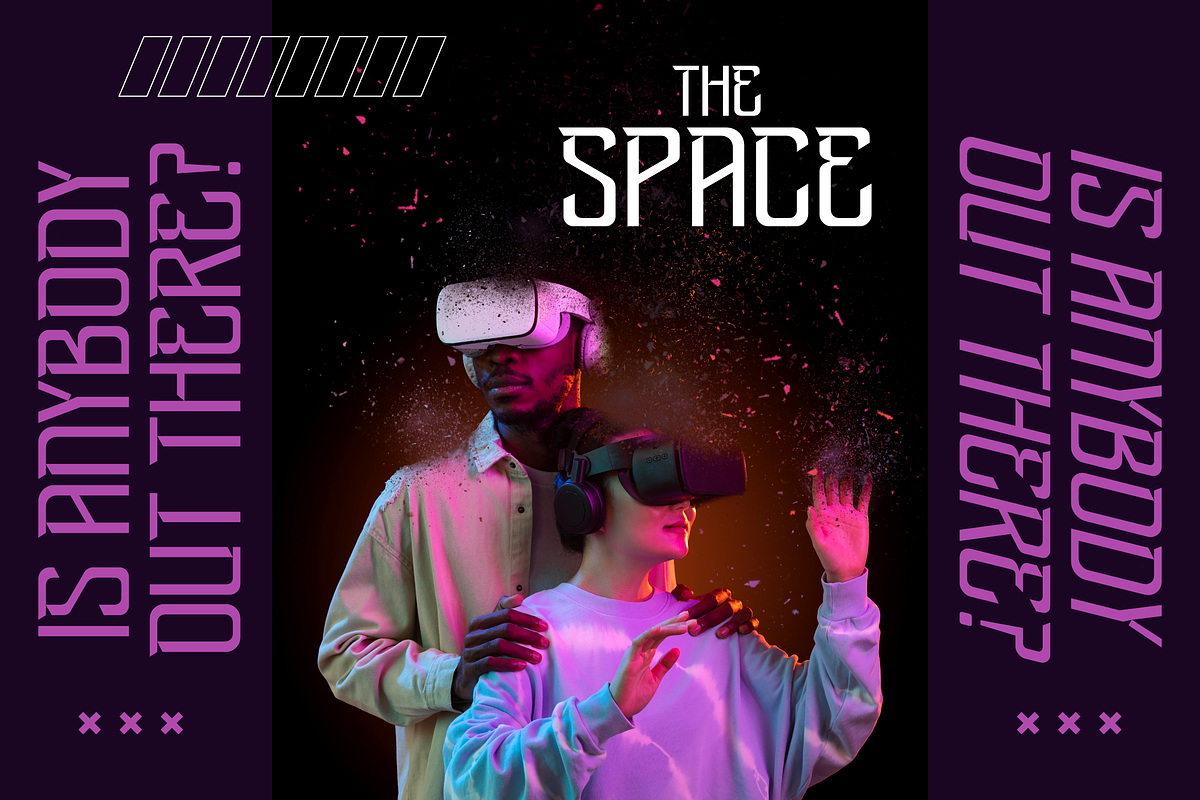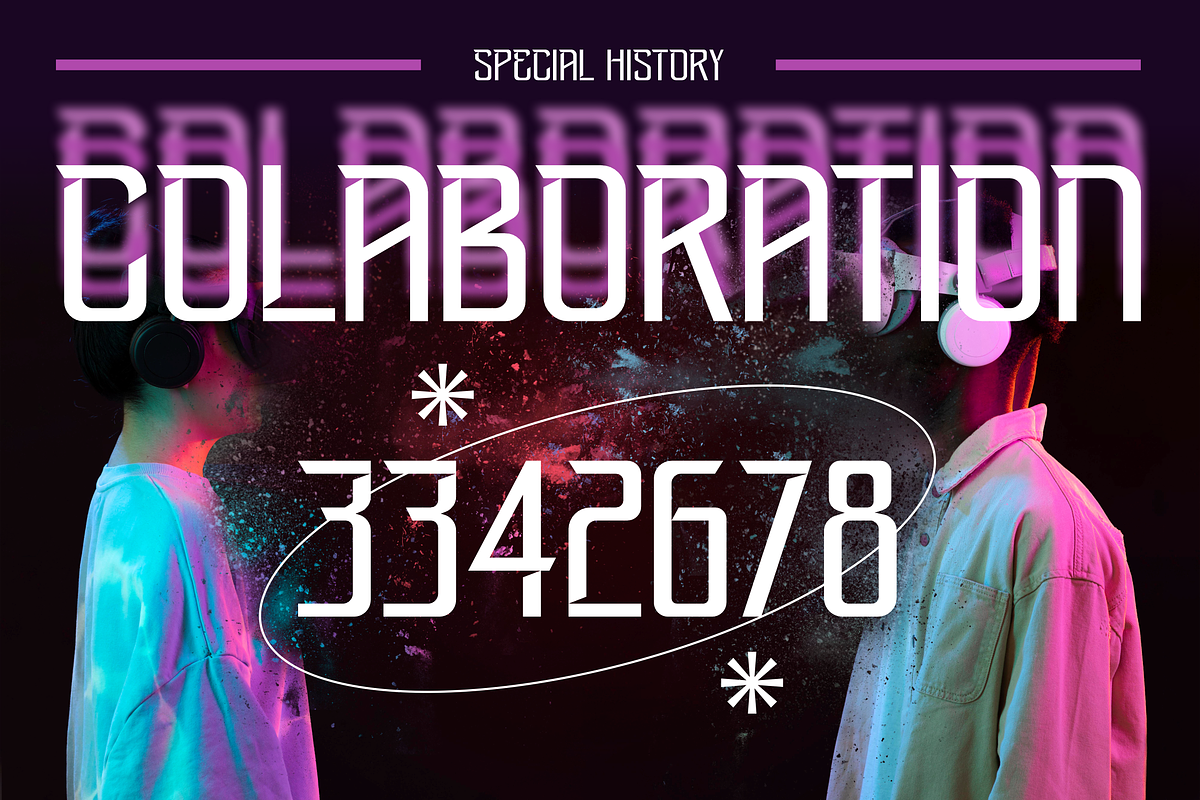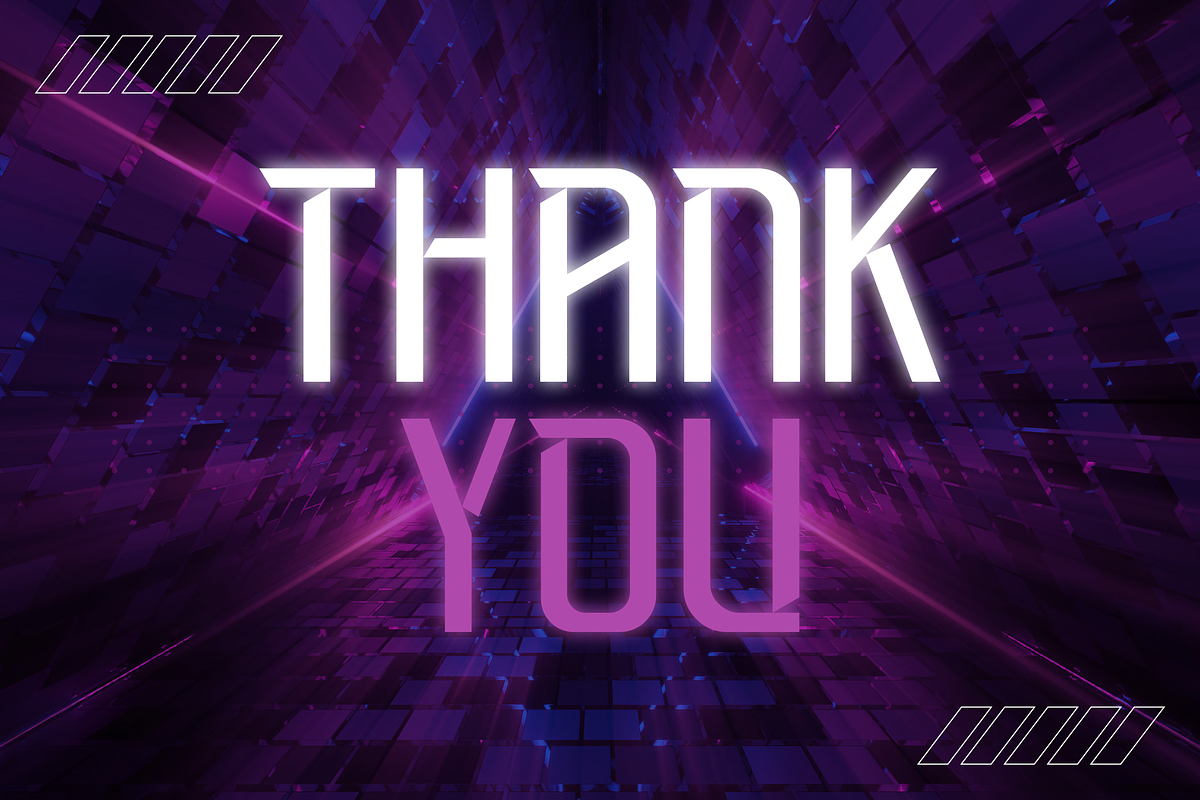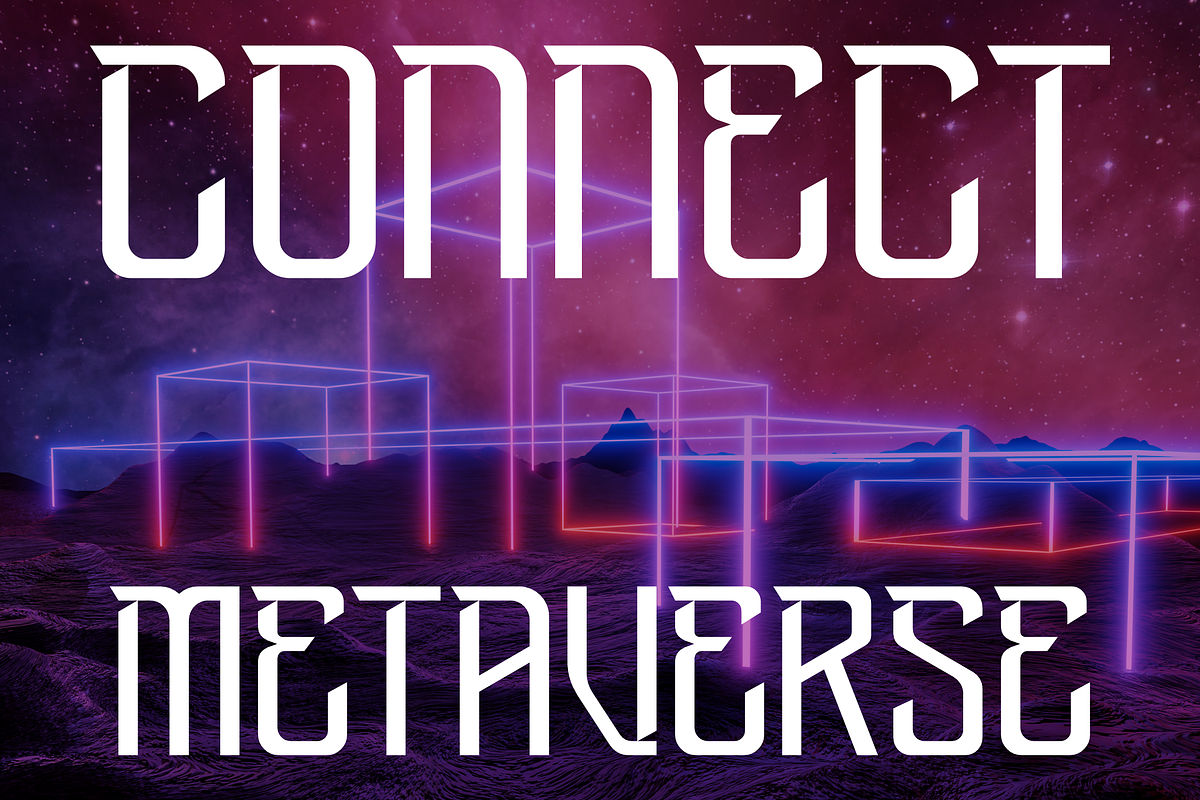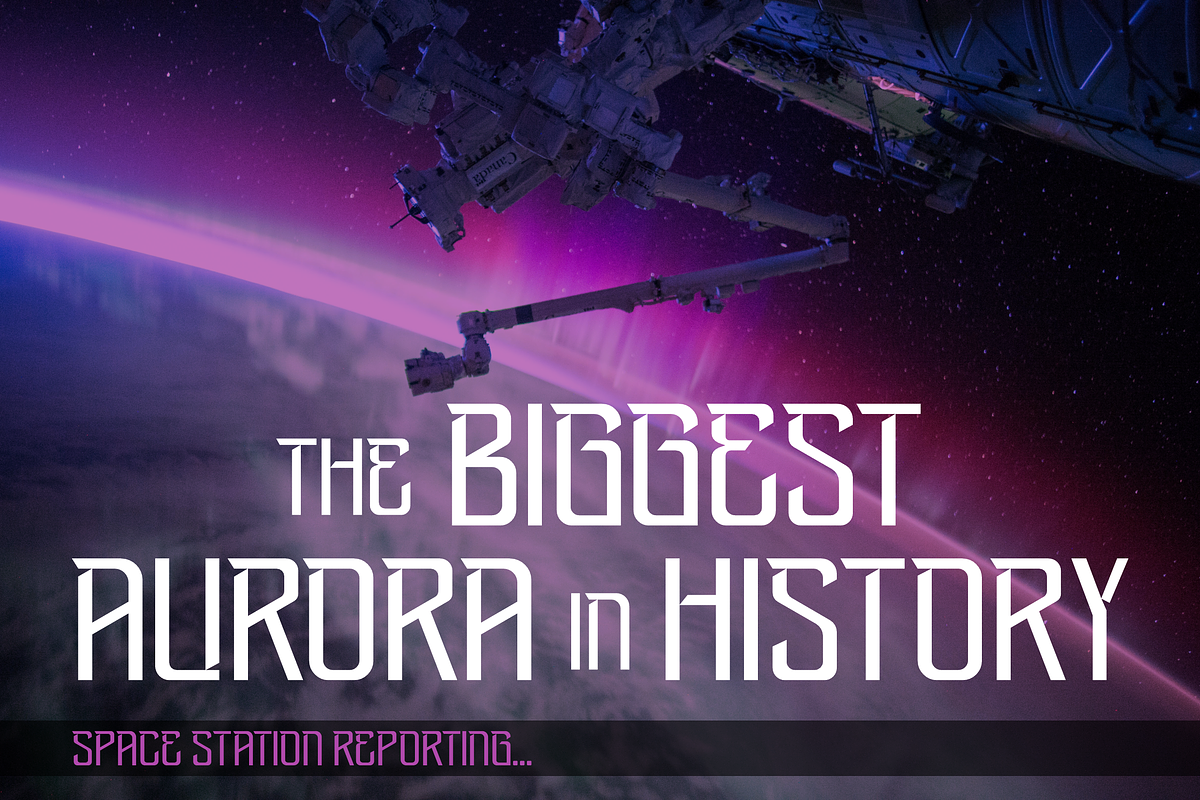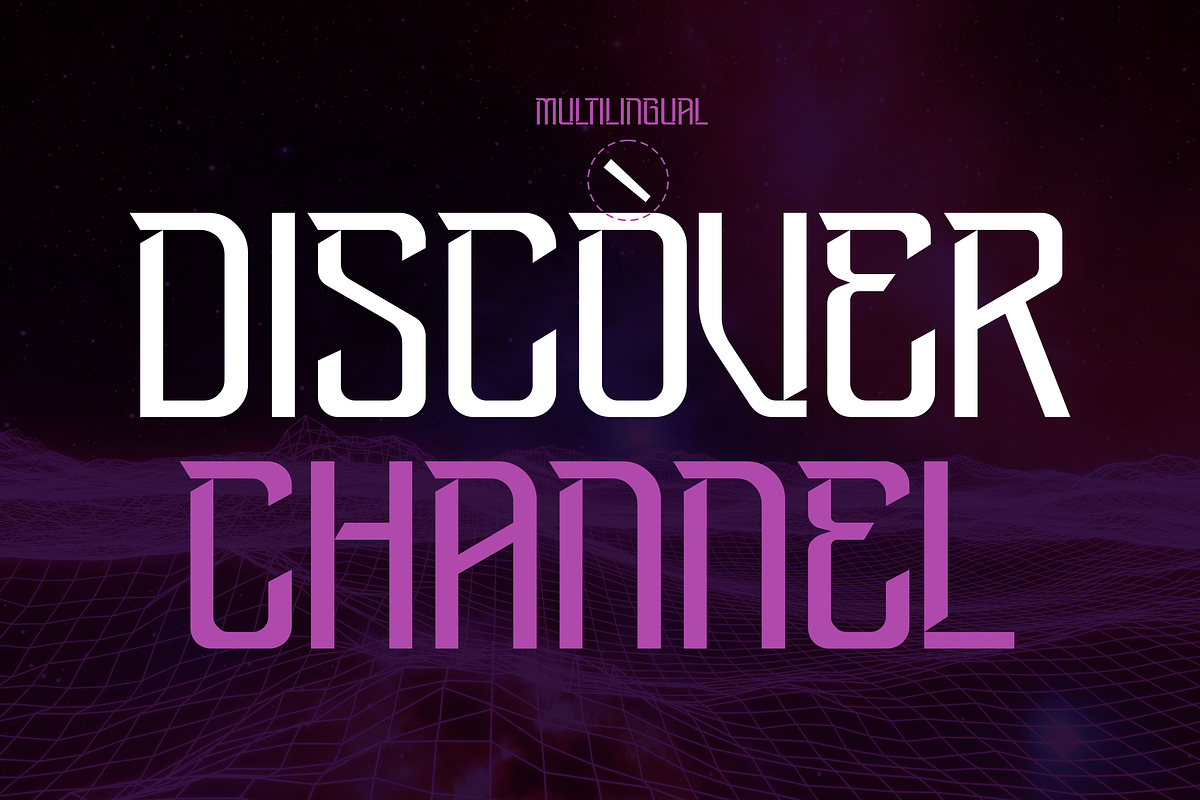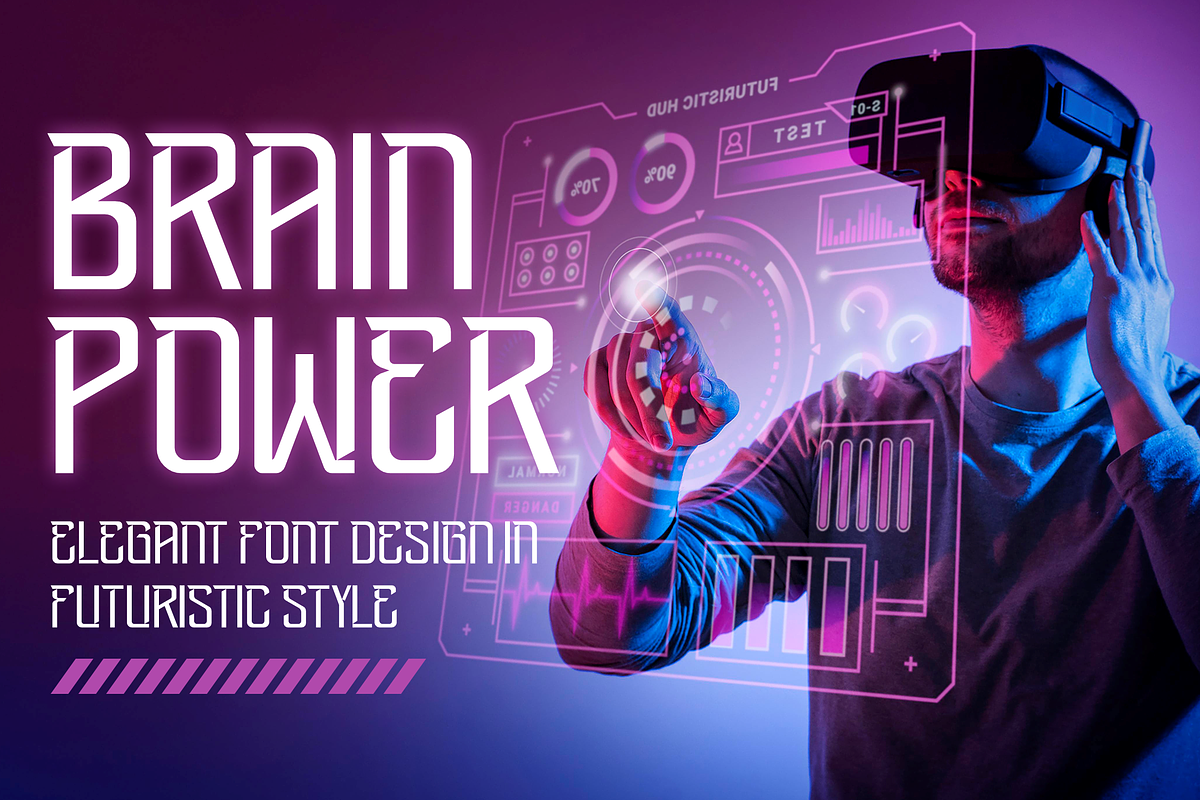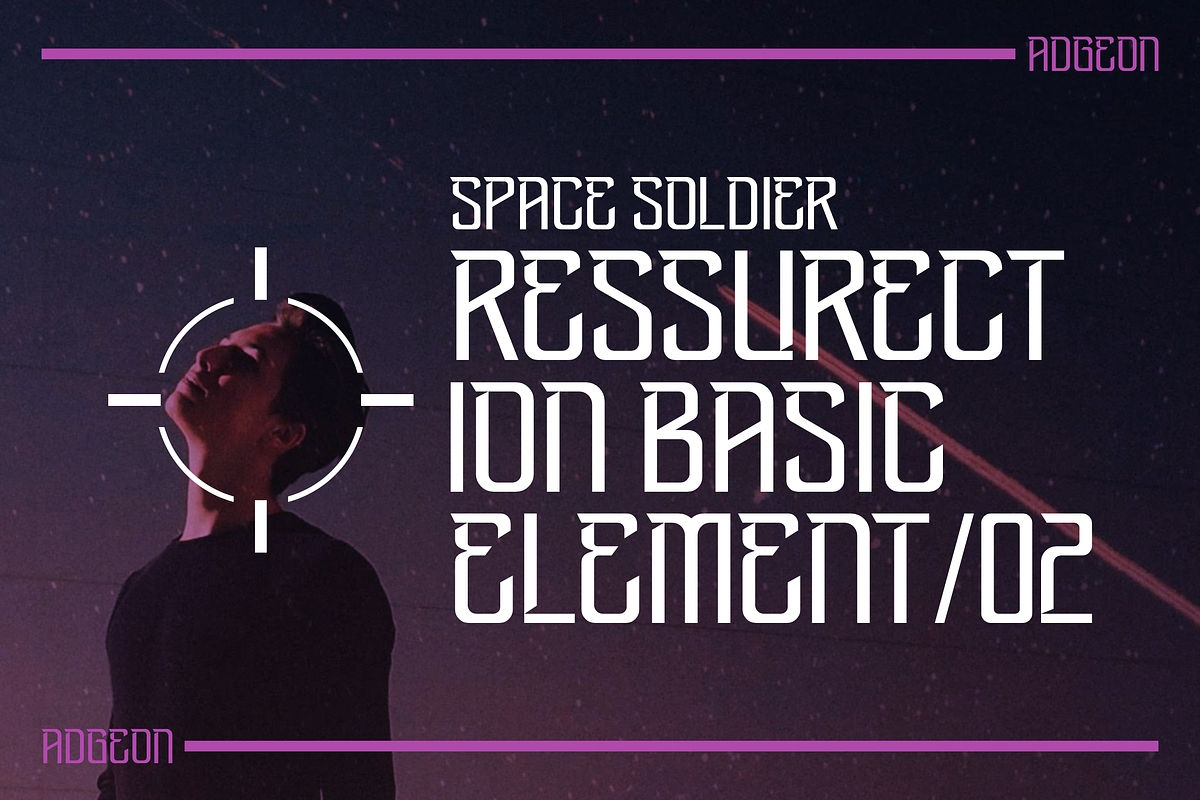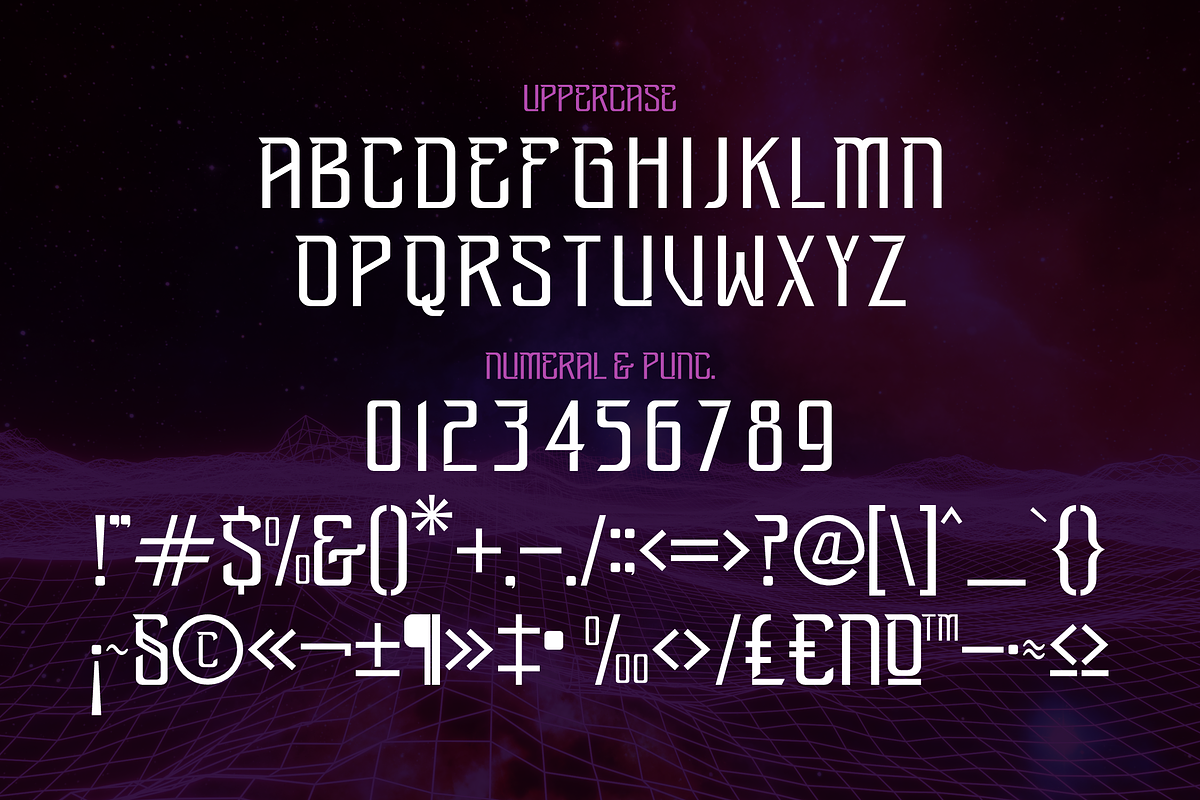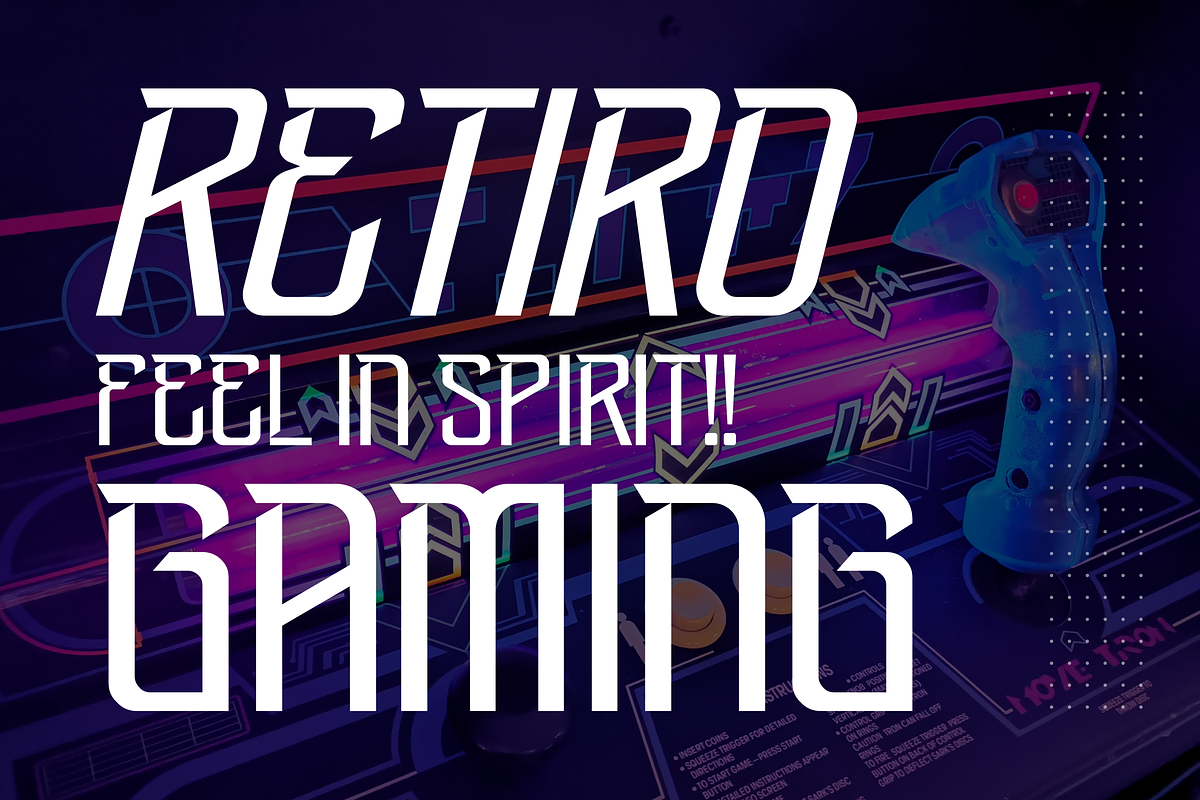
Adgeon Futuristic Display Font
Proudly present ADGEON Typeface , created by Storytype, A serif modern and classic typeface that has own unique style & modern look. This typeface is perfect for an elegant & luxury logo, book or movie title design, fashion brand, magazine, clothes, lettering, quotes, and so much more.